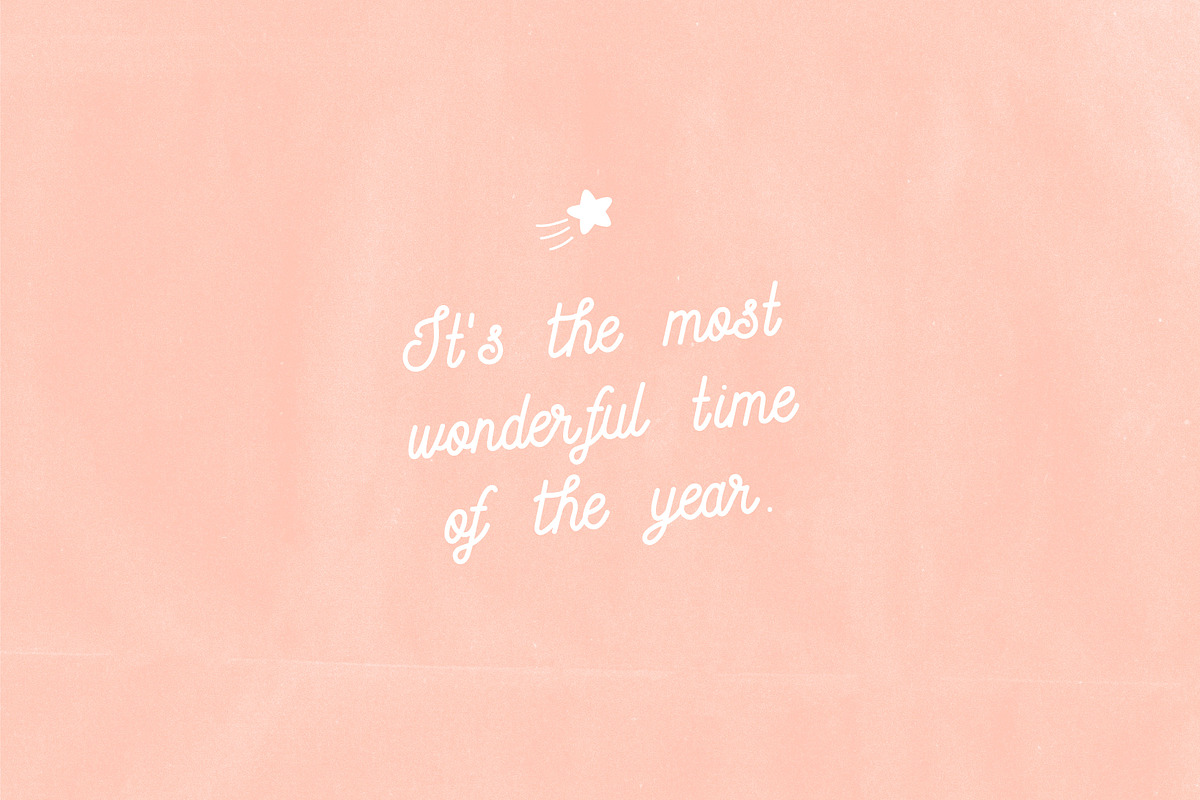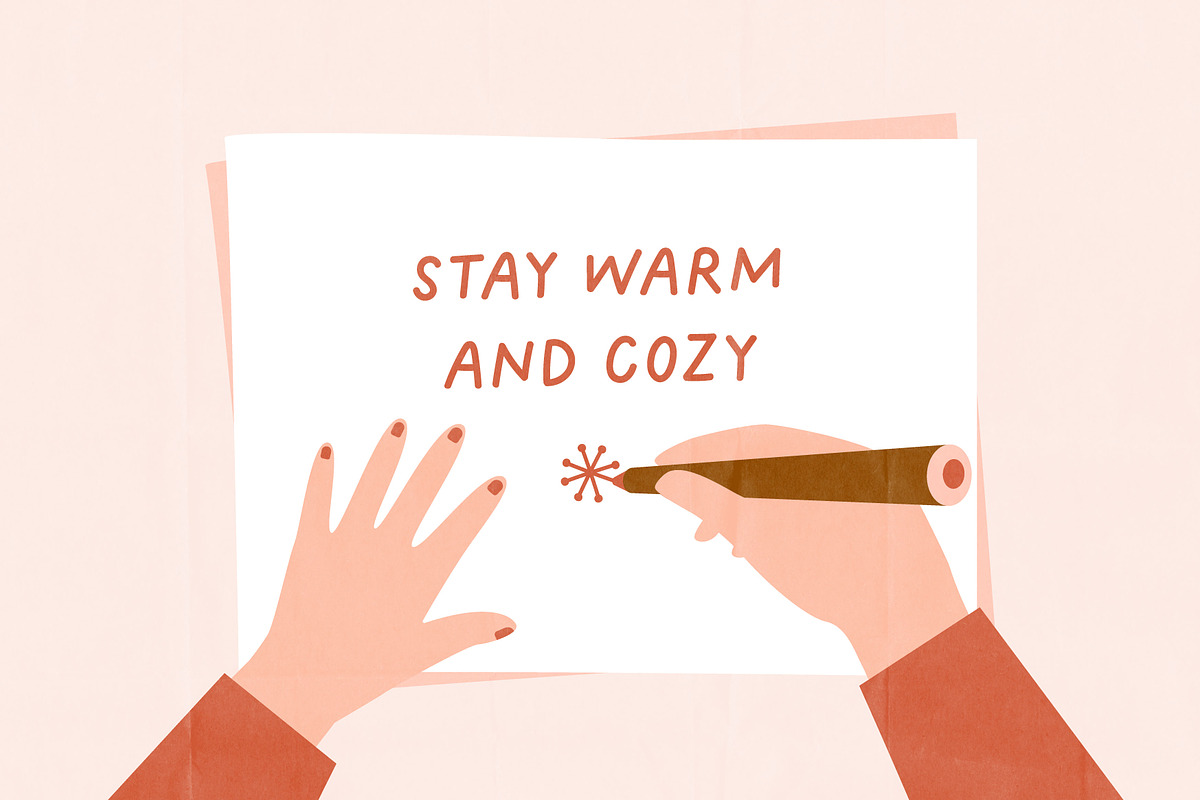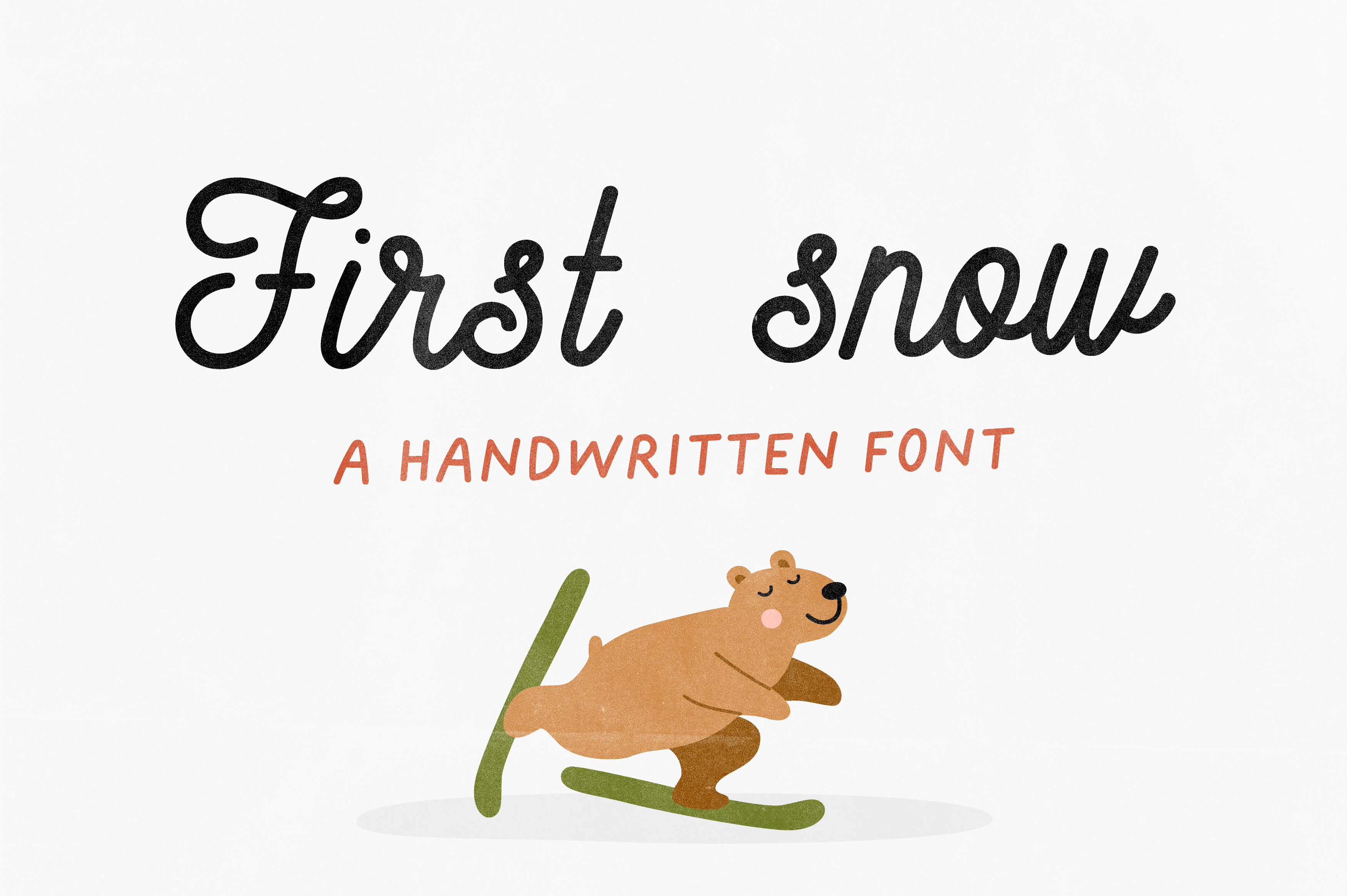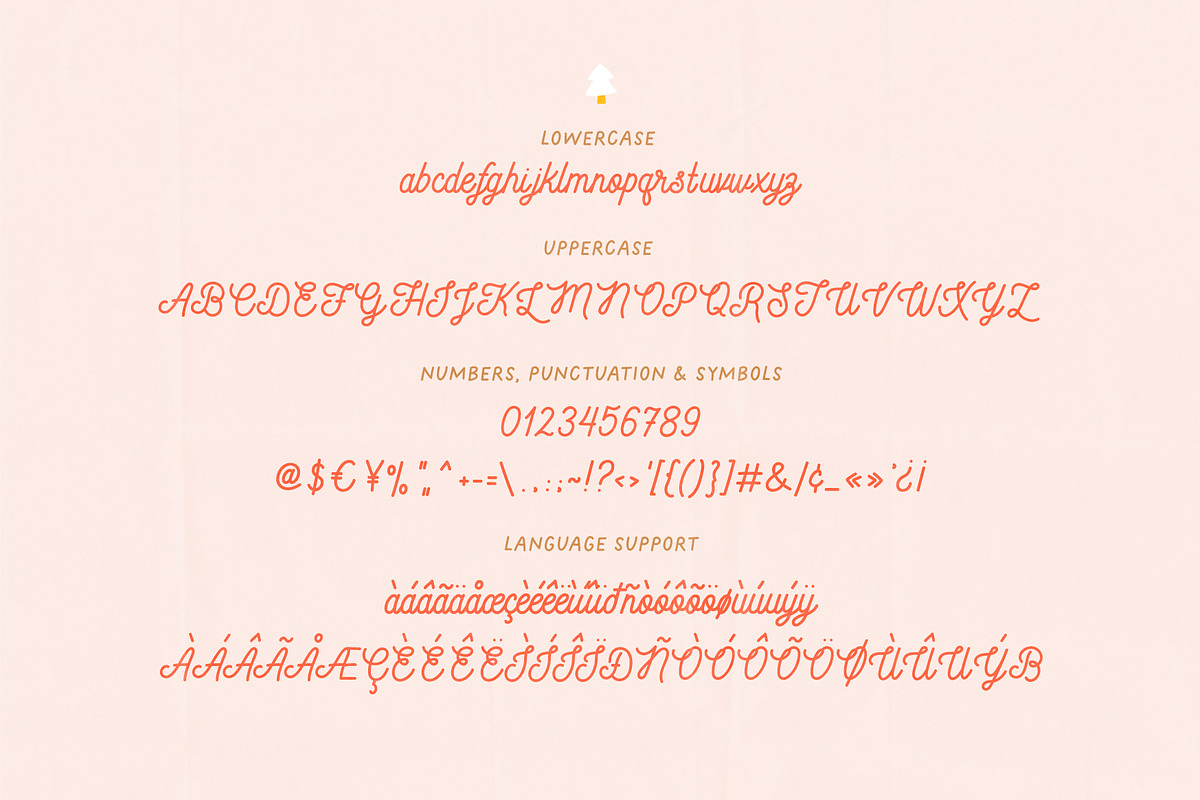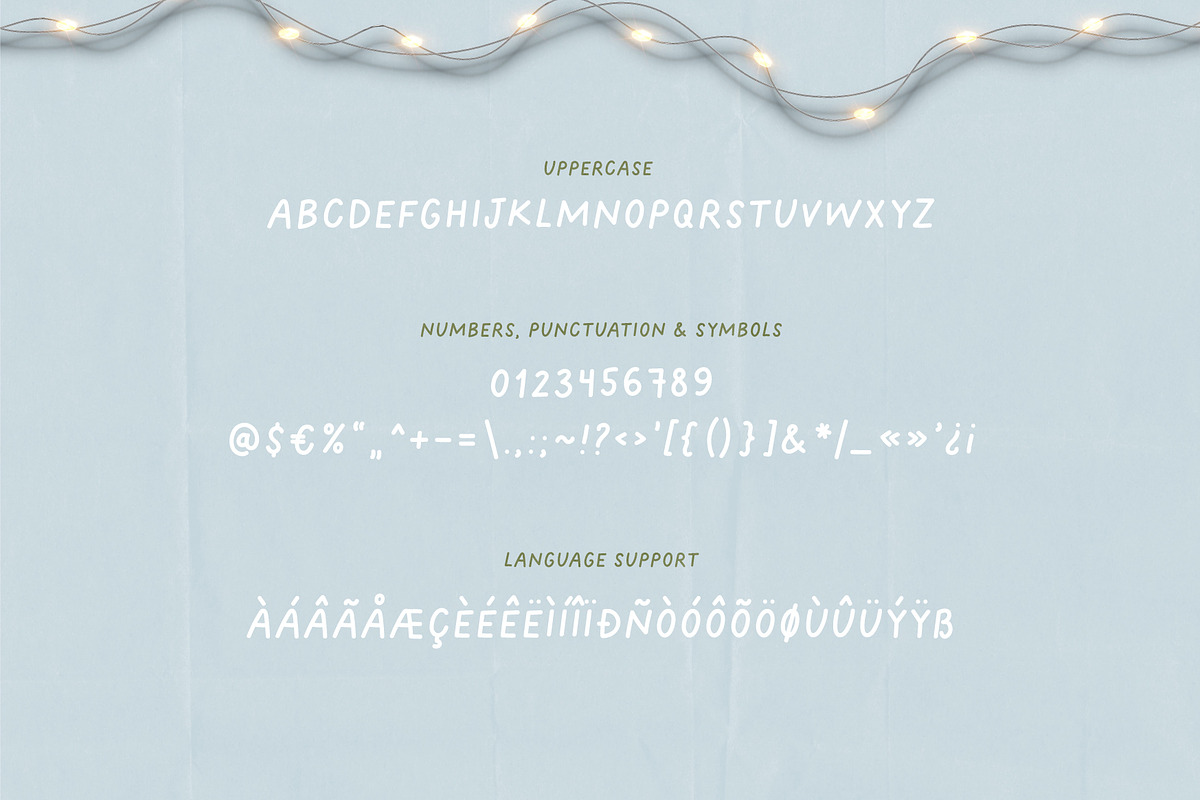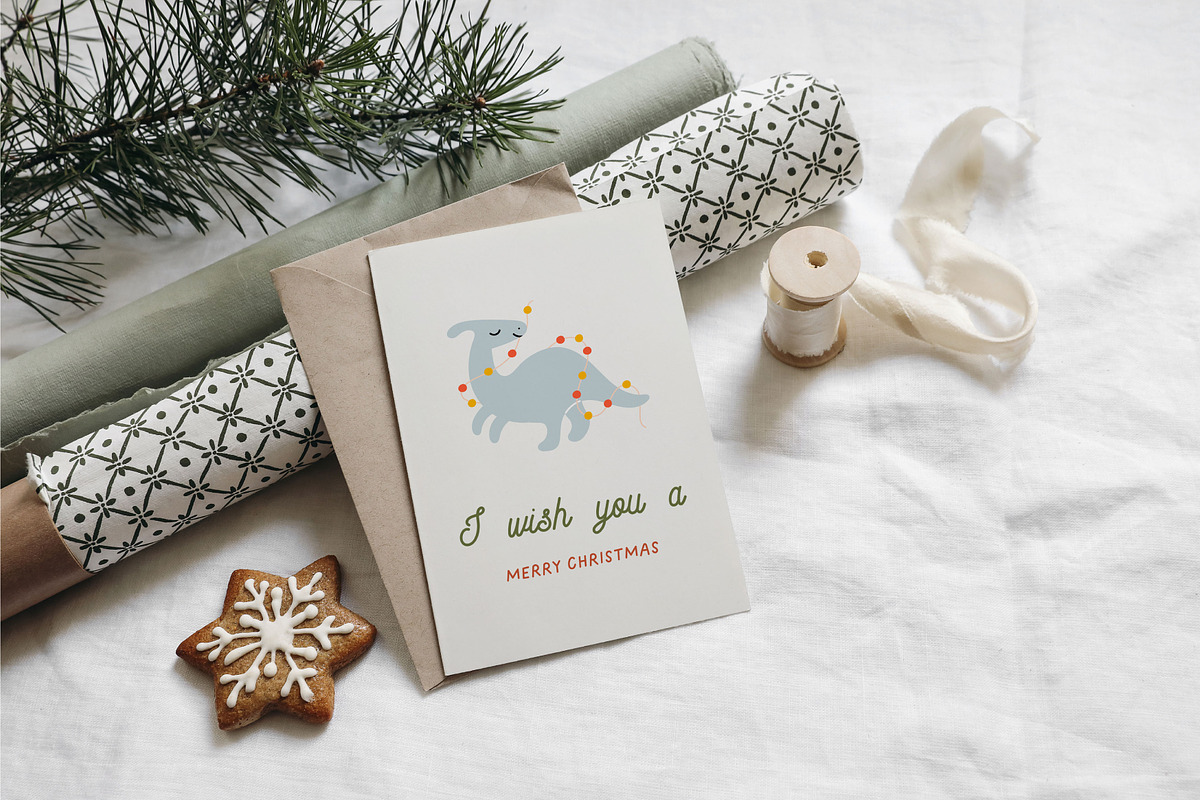
First snow | Handwritten font
First snow - cute hand-lettered font duo. Use for logos, quotes, invitations, greeting cards, journals, posters, baby clothing and more. This fonts will make your design looks great and fun!